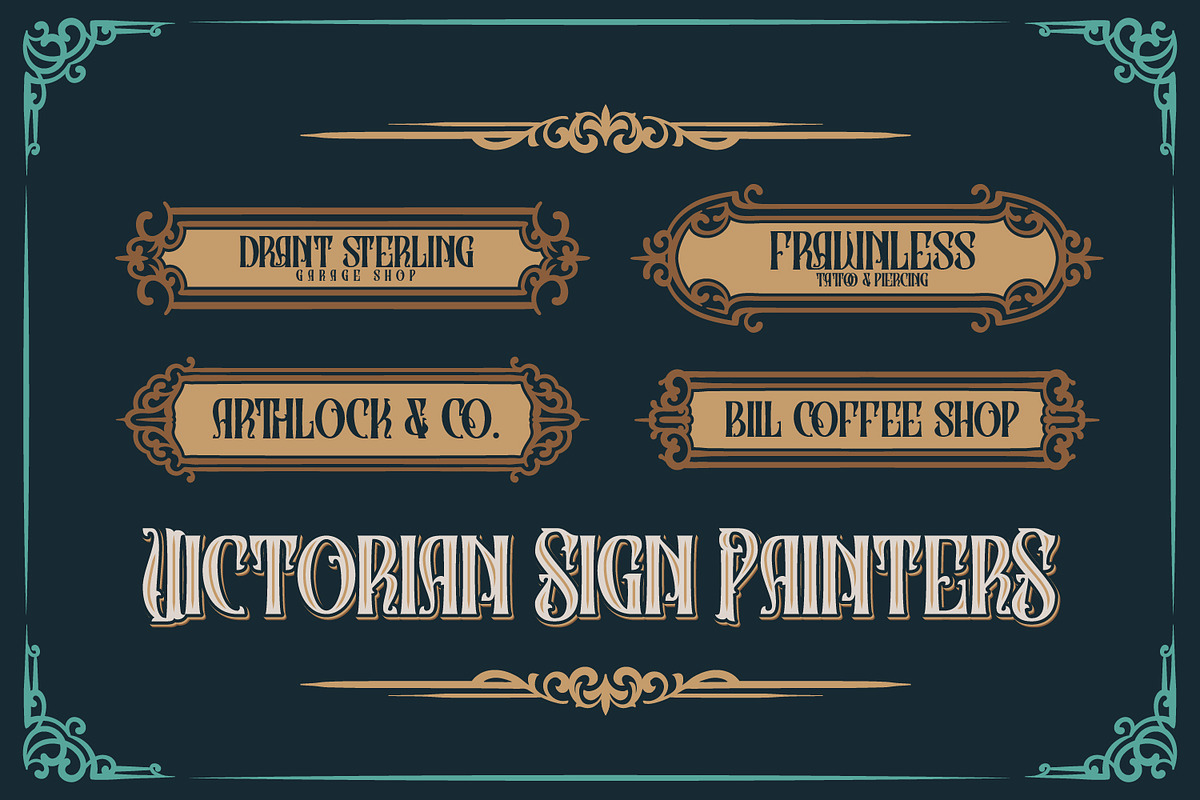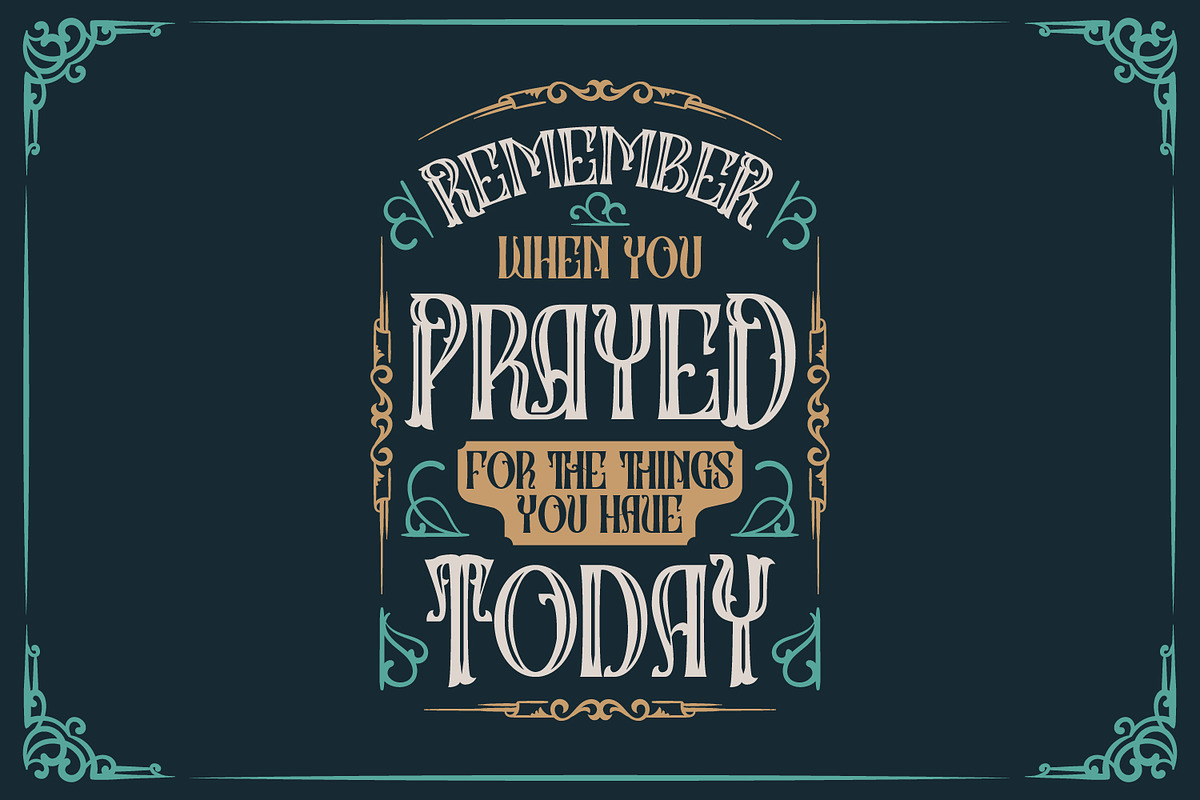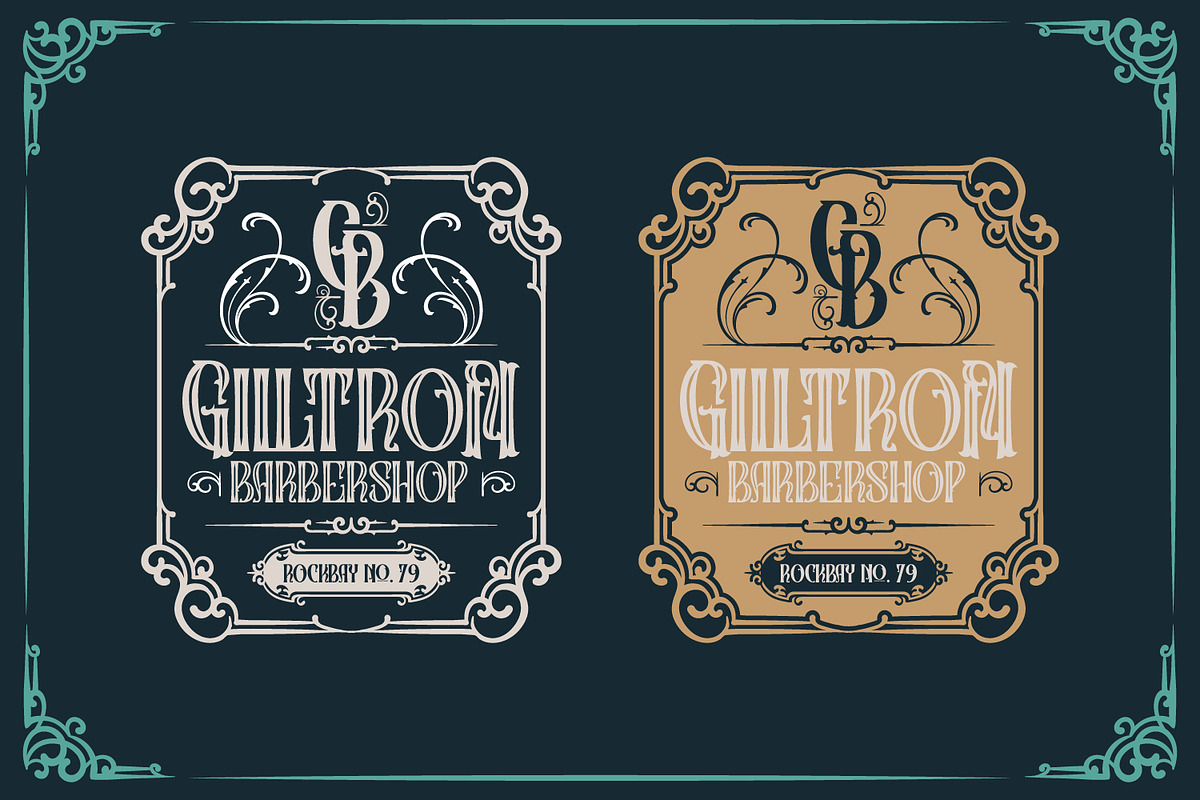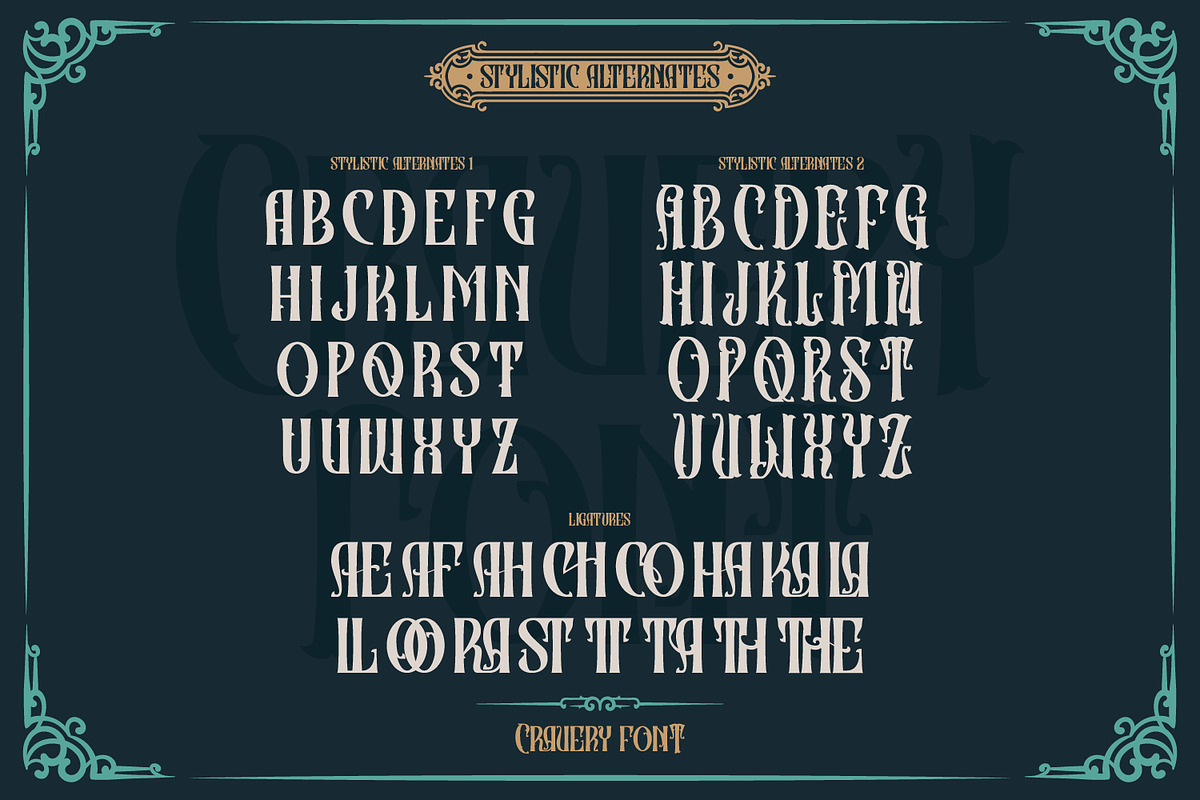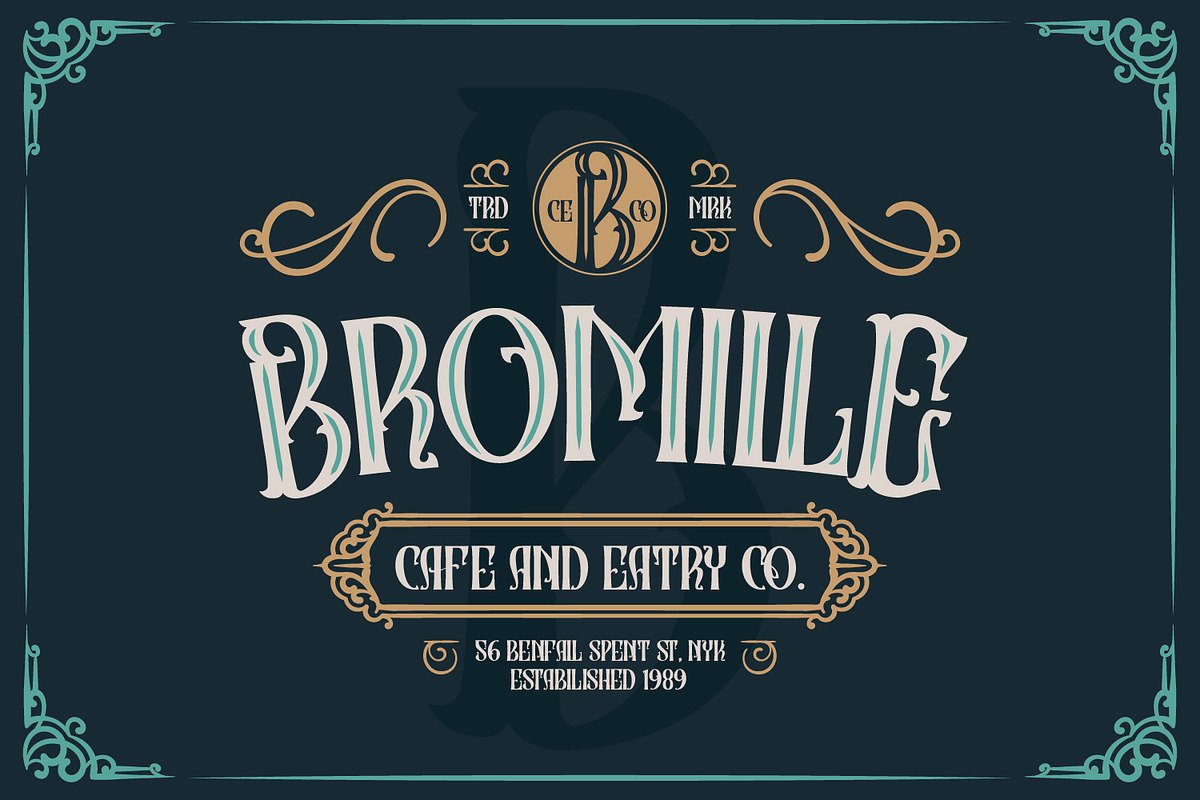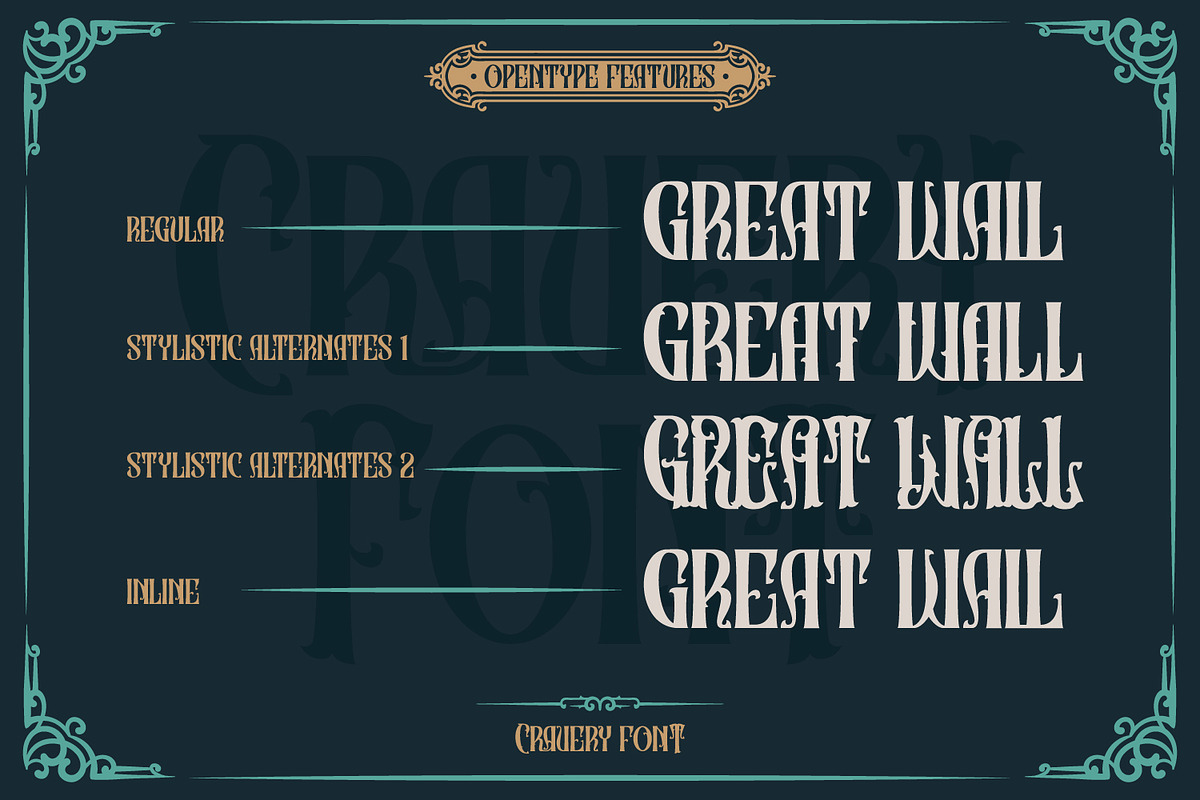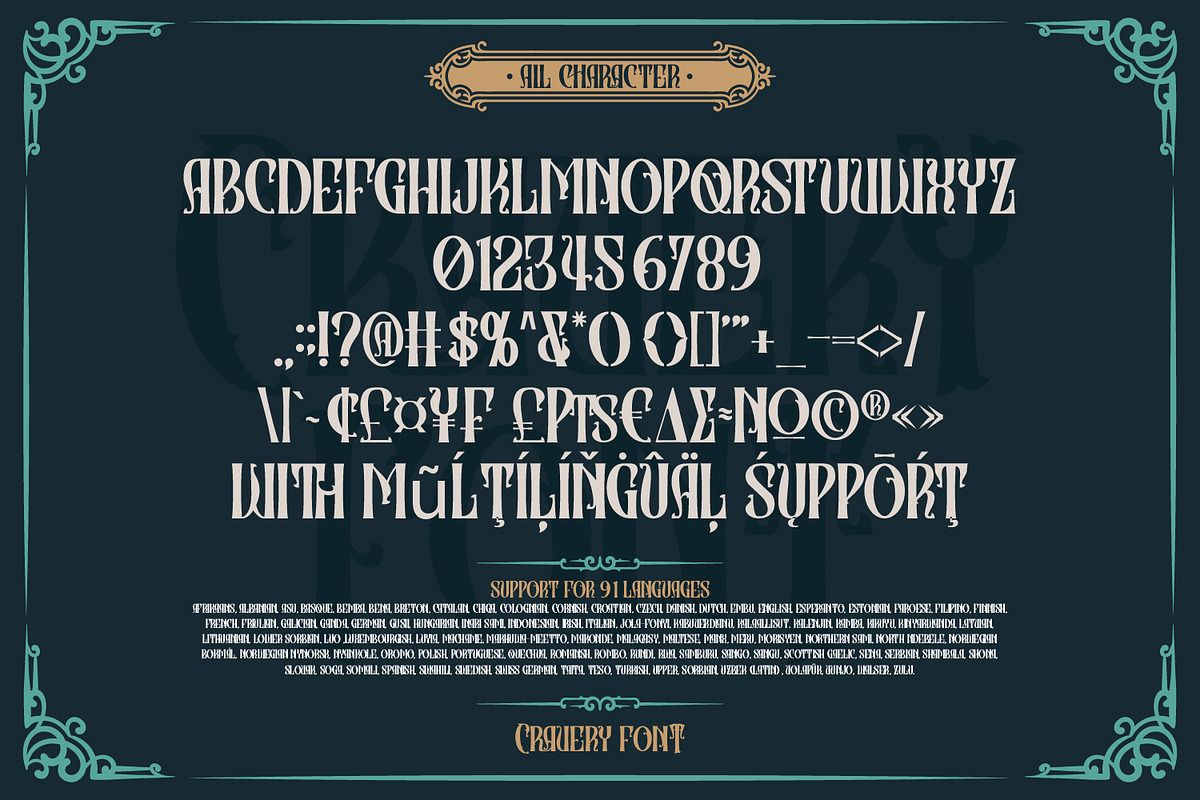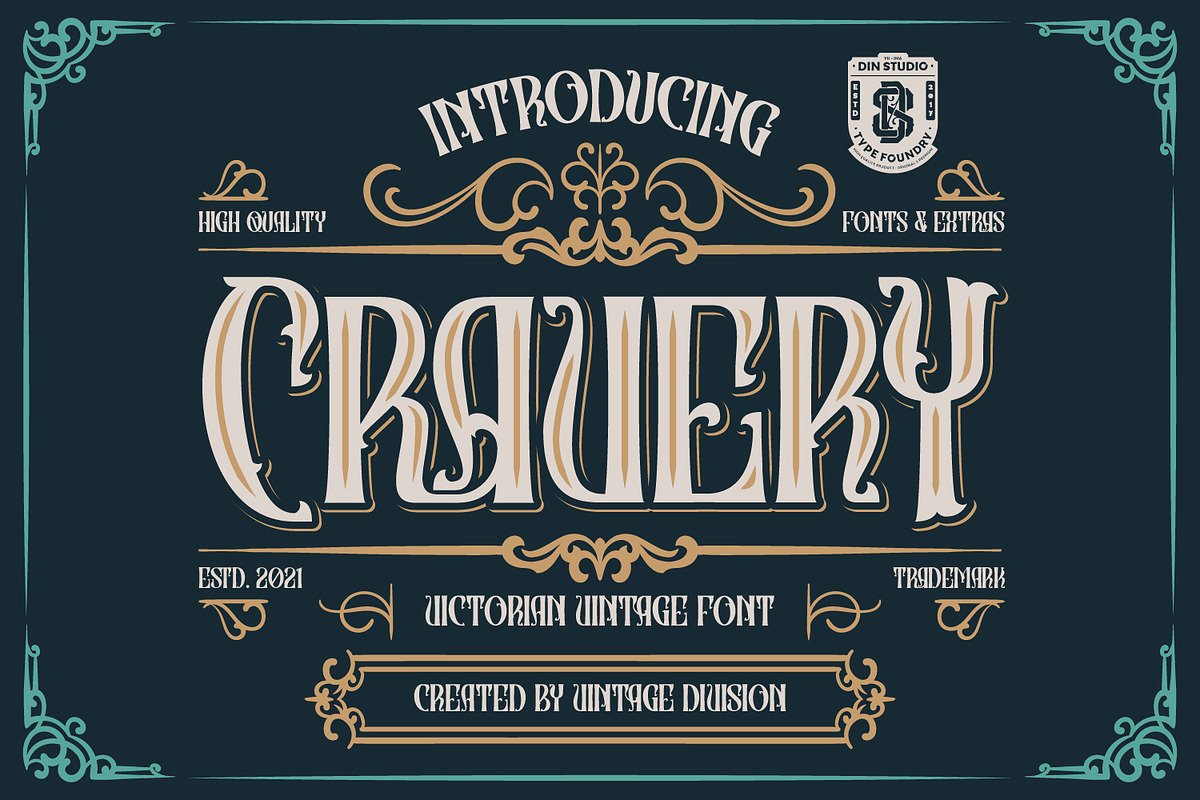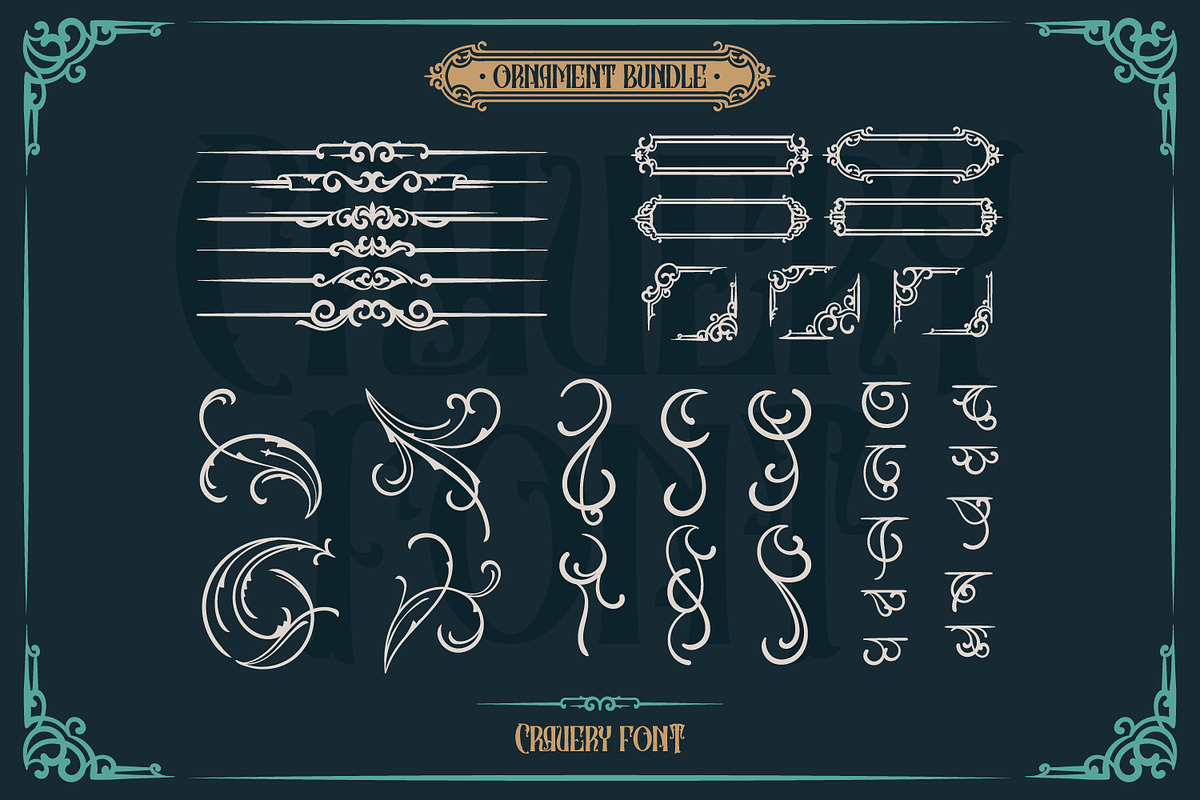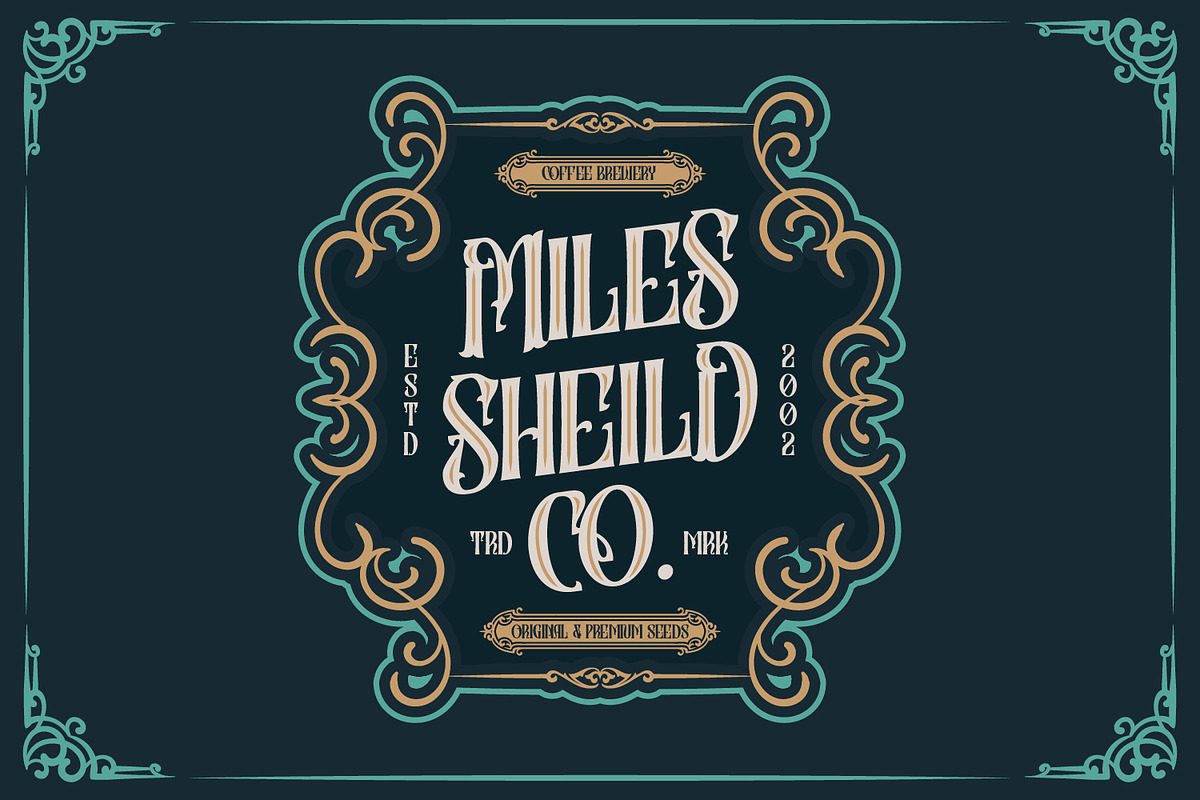
Cravery
Cravery-A Vintage Font
Cravery is a typeface that is made all characters in uppercase. An excellent choice to add the right amount of retro touch. This typeface with artistic style looks very interesting for loads of different projects and promotions. A great all-in-one package for your logo, book cover, poster, t-shirt, branding, and advertisement needs.